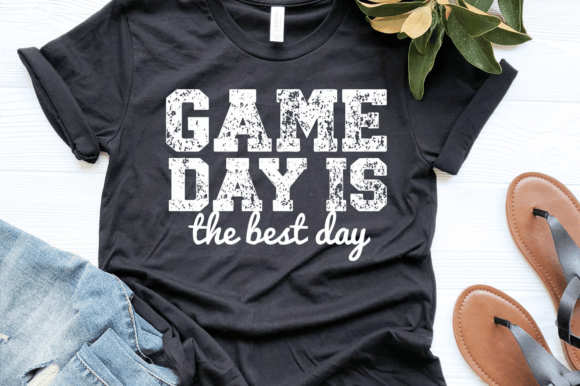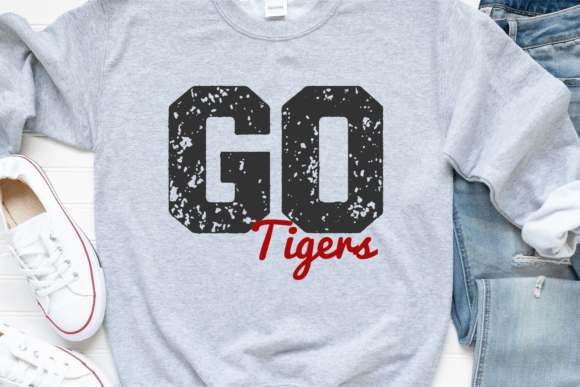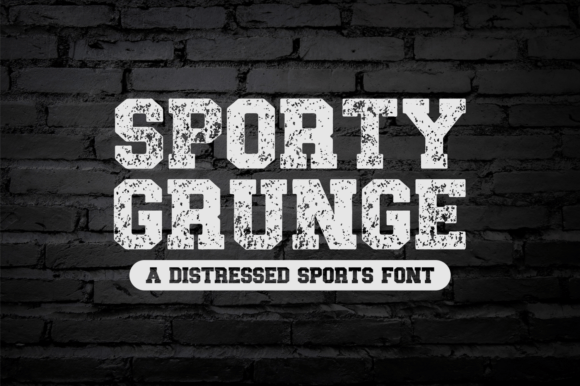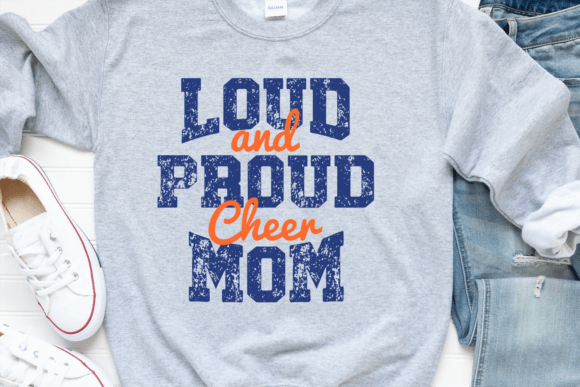
Sporty Grunge Font
About the Sporty Grunge Font
Unleash your creativity with Sporty Grunge Font, a versatile font perfect for a wide range of applications. Sporty Grunge is a cool sport display font with a heavily distressed texture. No matter the topic, this font will be an incredible asset to your fonts’ library, as it has the potential to elevate any creation.